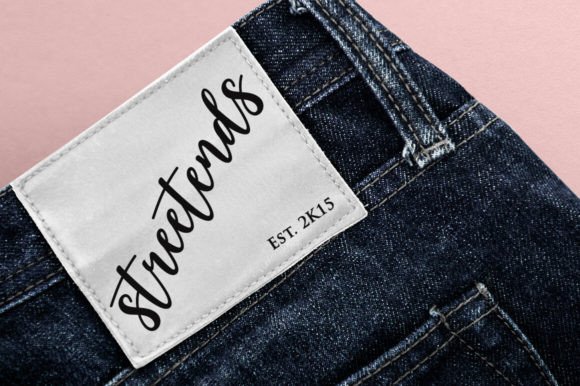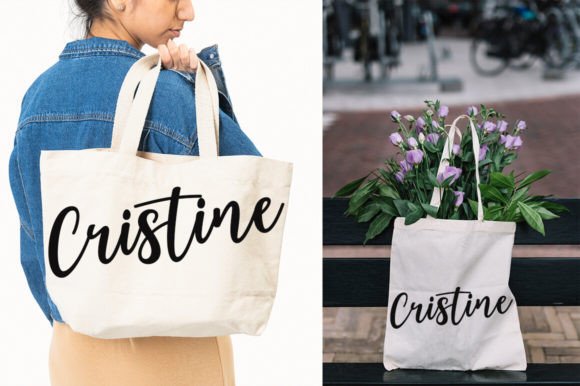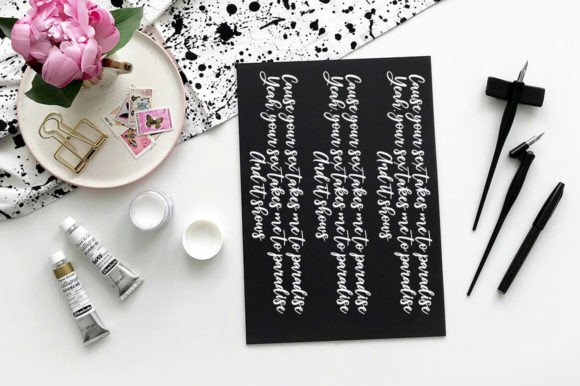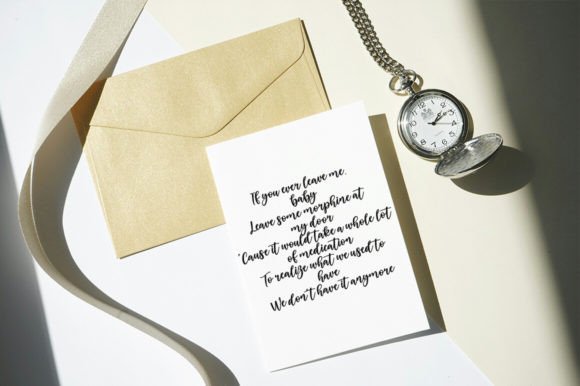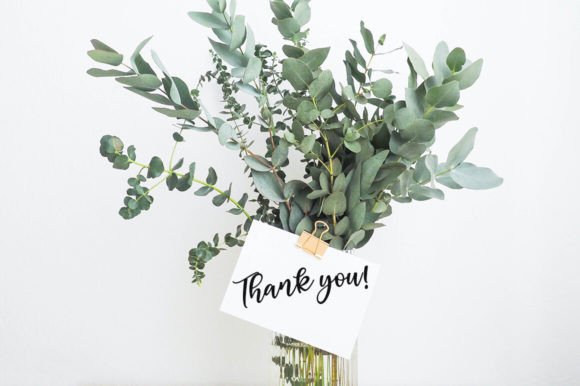
Unlocking the Art of Modern Calligraphy
Imagine you’re brainstorming ideas for your dream wedding, and as you pour over your wedding planner, the perfect invitation design pops into your head – elegant, yet playful, with a touch of whimsy. You see it in your mind’s eye, but can’t quite put it into words. That’s where the Brides Creates Script comes in – a beautifully crafted font that brings your vision to life.
This versatile font is more than just a decorative element; it’s a powerful tool for designers, allowing them to add a touch of sophistication to any project. Whether you’re creating a logo, designing product packaging, or crafting wedding invitations, the Brides Creates Font is sure to elevate your design to the next level. Its unique blend of casual elegance and artistic flair makes it the perfect addition to any project.
Brides Creates Font Key Features
- Font Family: Brides Creates is a beautiful, elegant script font.
- Size: The font family includes 5 weights, ranging from Thin to Extra Bold, providing flexibility for various design needs.
- Resolution: Designed for high-resolution displays, with optimal performance at 300 DPI and above.
- Unique Characteristics: Features beautiful, flowing connections between letters, making it perfect for wedding invitations, quotes, and other elegant designs.
- Language Support: Supports a wide range of languages, including Latin, Greek, and Cyrillic scripts.
Brides Creates Font Review
I recently had the chance to try out the Brides Creates Font, and I’m excited to share my thoughts on it.
The Brides Creates Font is a beautiful, elegant script font that’s perfect for weddings and other special occasions.
- It’s highly customizable, with a range of styles and sizes to choose from.
- The font is well-suited for both digital and print use, making it a great choice for a variety of projects.
- The font is highly legible, even at small sizes, which is a must for any font.
While the Brides Creates Font is a great choice for many projects, there are a few limitations to consider.
- The font may not be the best choice for bold or display headings, as it can become quite ornate and overwhelming.
- The font is not as versatile as some other fonts, and may not work well in all design contexts.
Overall, I’m really impressed with the Brides Creates Font. It’s a beautiful, elegant script font that’s perfect for weddings and other special occasions. While it may have a few limitations, I think it’s a great choice for many design projects.
Brides Creates Font is perfect for:
- Wedding websites and social media graphics.
- Wedding planning and design services.